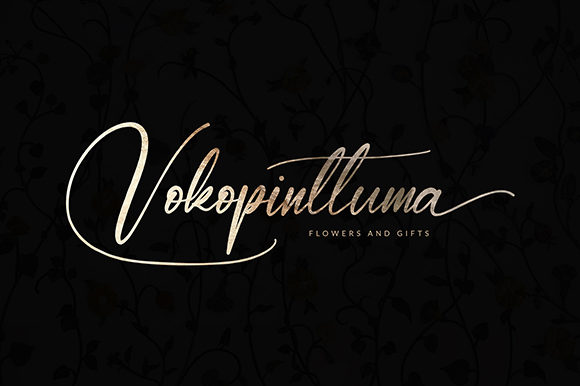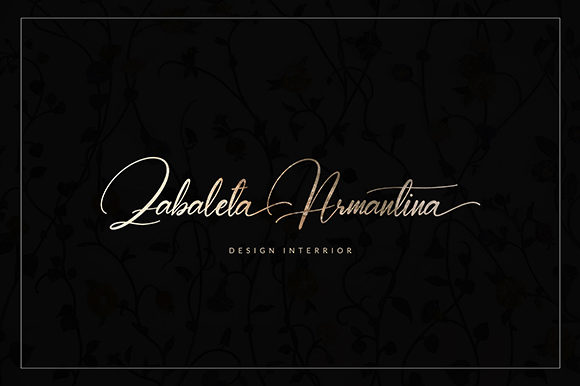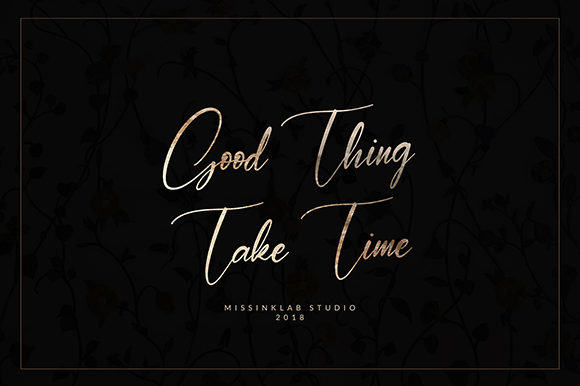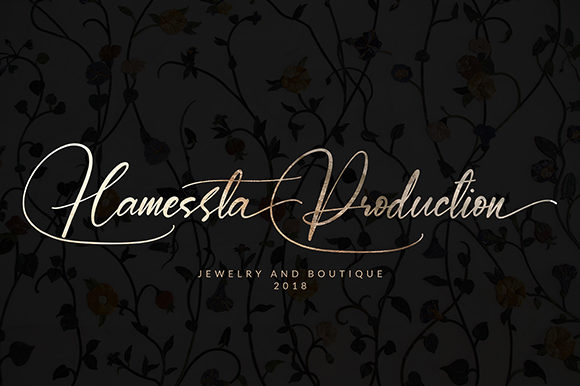
Introduction to Karrttela Font
Karrttela is a stunningly light and elegant handwritten font with beautiful swashes.
Fall in love with its classic appeal .
Key Features of Karrttela Font